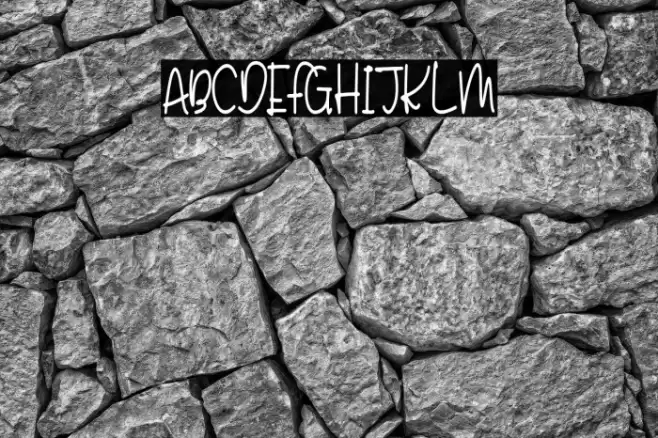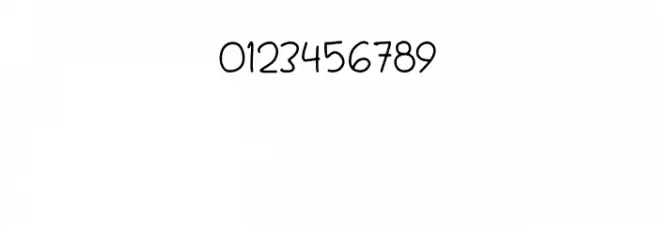
Fancy Epic Font
Fancy Epic Description
This font features a playful and whimsical handwritten style, characterized by its irregular and dynamic letterforms. The uppercase letters exhibit a lively bounce, with varying heights and slants that add a sense of movement and energy. The lowercase letters maintain this playful aesthetic, with loops and curves that give a casual and friendly appearance. The numerals are consistent with the overall style, featuring rounded edges and a slightly uneven baseline. This font's unique character is further enhanced by its moderate contrast in stroke thickness, which adds depth and visual interest.
A playful and whimsical handwritten font with dynamic letterforms from Uncategorized fonts.
- Font: Fancy Epic
- Proposed Projects: Ideal for children's book covers, playful branding, greeting cards, and creative social media graphics.
- Overall Style: Playful
- Use Case: Logos, Headlines, Creative projects